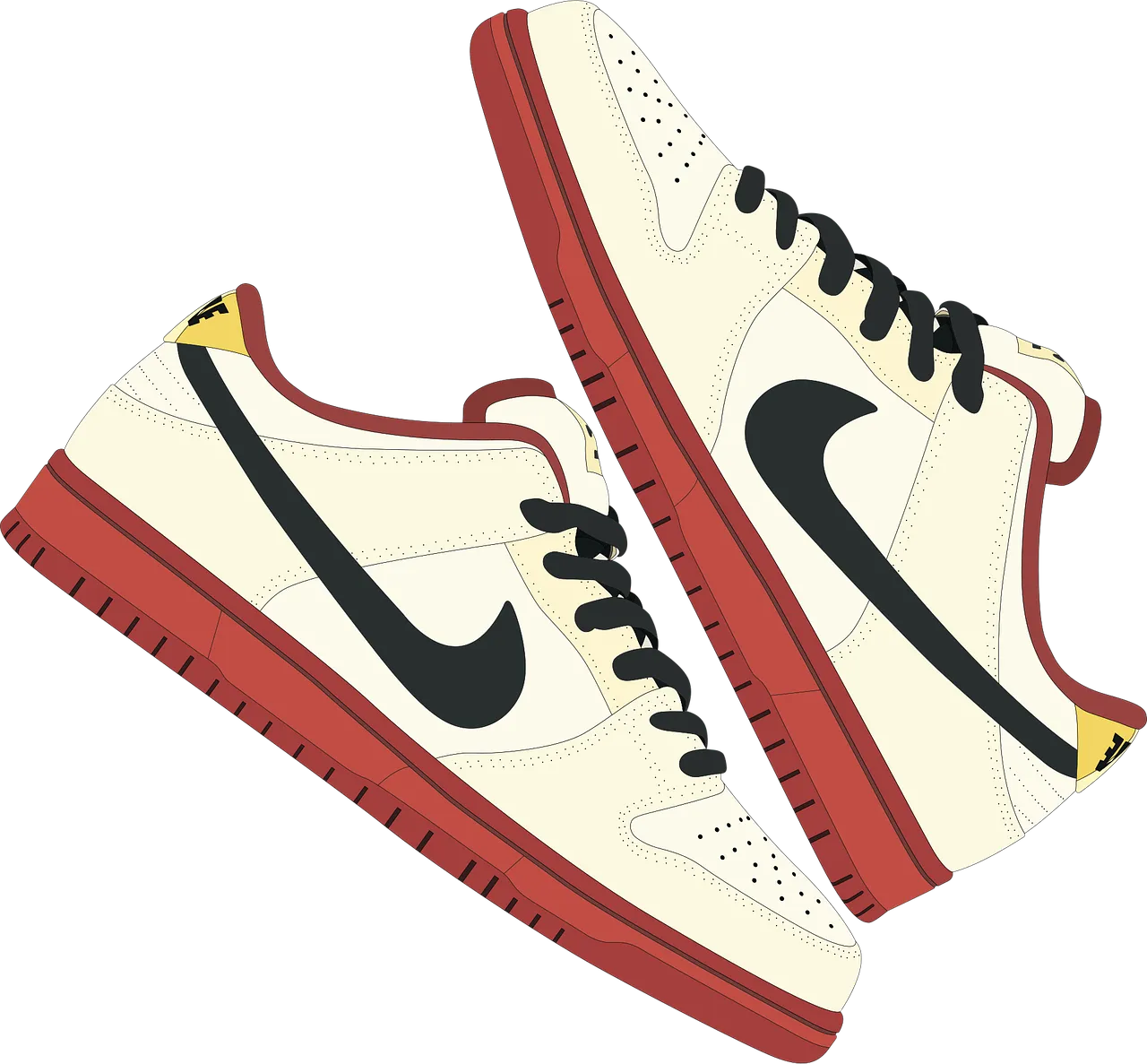
Nike, Inc. is an American multinational company that is engaged in the design, development, production, and global promotion and sales of apparel, gear, accessories, and solutions. The business is headquartered near Beaverton, Oregon, in the Portland metropolitan region. It’s the world’s biggest provider of athletic apparel and shoes and also a significant producer of sports equipment, with earnings in excess of US$37.4 billion in its financial year 2020 (ending May 31, 2020).
The business was established on January 25, 1964, as”Blue Ribbon Sports”, by Bill Bowerman and Phil Knight, also formally became Nike, Inc. on May 30, 1971. The business takes its title from Nike, the Greek goddess of success. In addition to fabricating sportswear and gear, the company operates retail stores under the Niketown name. Nike sponsors many high-profile athletes and sports clubs across the Earth, together with the highly recognized trademarks of”Just Do It” and the Swoosh logo. Today we will discuss in detail the logo font of Nike. Also, you can download Nike font from here. So I hope we can learn more about Nike fonts through this article.
Nike Logo
The Nike swoosh emblem is among the world’s simplest but best branding visuals. In addition to sports and athletes enthusiasts, millennials like purchasing products bearing the Nike emblem. In reality, 62 percent of the sports shoe market extends to Nike. The swoosh image includes a life of its own as it is already patented and incredibly common.
Nike’s recent logo, the only swoosh, was adopted in 1995. These days, the logo is known to endure athleticism, speed, and quality in clothes design. Often mentioned among the world’s most recognizable logos, the Nike emblem produces a good case for simplicity.
The logo of Nike is merely a sign. However, the motto and the Nike word sometimes seemed over the emblem. Today our main topic is about the font used in the motto and the word Nike, which seemed over the emblem.
Font Used in the logo
The Font That uses from the Nike motto and Nike Term is Futura Bold Condensed.
The Nike title is in bold letters, which assists to market the brand. The title”Nike” appeared at Futura Bold in addition to the emblem until 1995.
The organization name”Nike” has been taken out of the emblem in 1995. The swoosh has been the sole logo design component left and is the organization’s only identifier now.
Futura Extra Bold Condensed (Nike Font)
The Nike font is actually Futura Extra Bold Condensed. It is a font style of Futura Typeface that is designed by Paul Renner. This amazing geometric Sans-serif typeface published through Bauer Type Foundry in 1927. With a number of 22 styles, Futura typeface is one of the famous and elegant typefaces in the world. This font is beneficial in most cases because of the powerful access. For its 22 font styles, Futura is a multipurpose typeface. It is perfect for official functions, like files, letterheads, business cards, names, and a lot more. It is going to also play a big part in designing owing to the sharp features and enormous language capability. It is possible to produce banner ads, logos, brochures, writing book covers, posters, and magazines. Futura font (Nike Font) is licensed under freeware font. You can download the free version of this font right from here for your personal use. To download Nike Font, Click the Nike font Download font Button below by Clicking the download font button below.